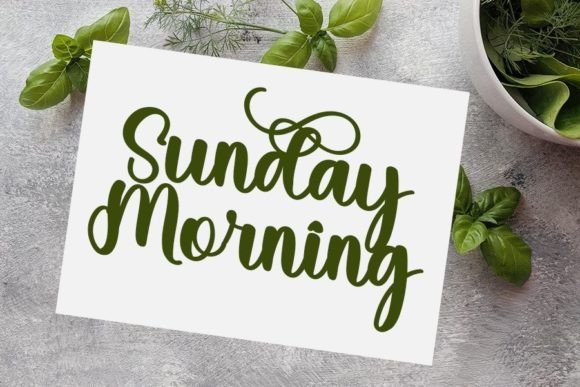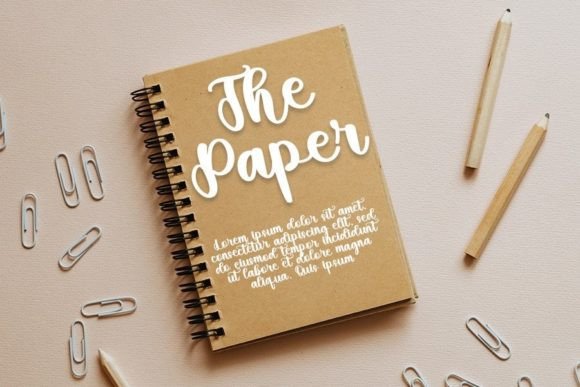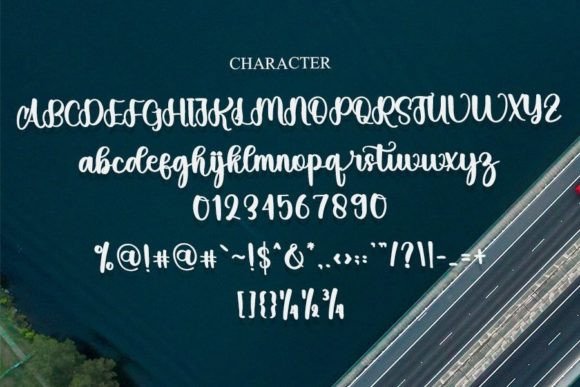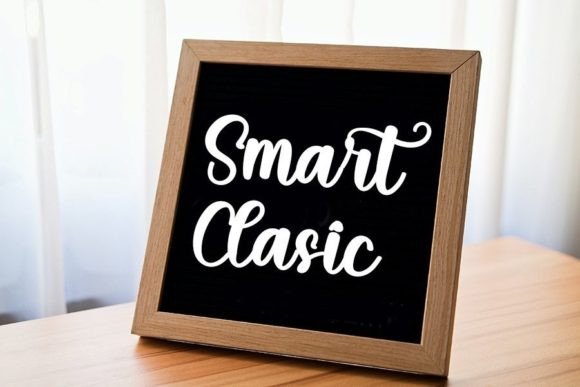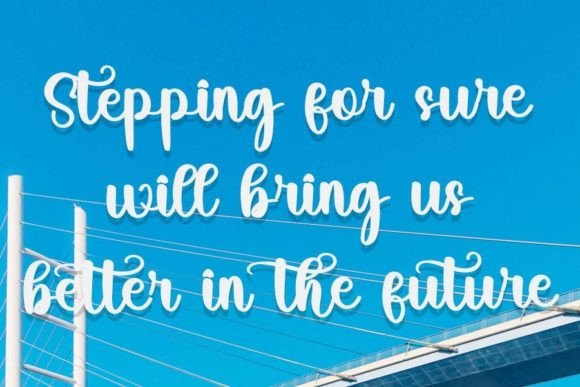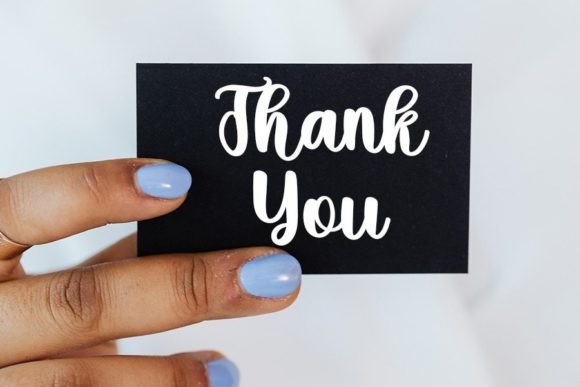
Bridge Font
About Bridge Font
“Bridge” sounds like a stylish handwritten font with a contemporary atmosphere and impeccable form, drawing inspiration from timeless classic calligraphy. Fonts with a balanced and varied design often contribute to the overall beauty of creative projects.
The description suggests that “Bridge” was specifically crafted to enhance the beauty of your projects. Fonts that successfully blend classic calligraphic elements with a contemporary twist can be versatile and impactful for a range of design applications.